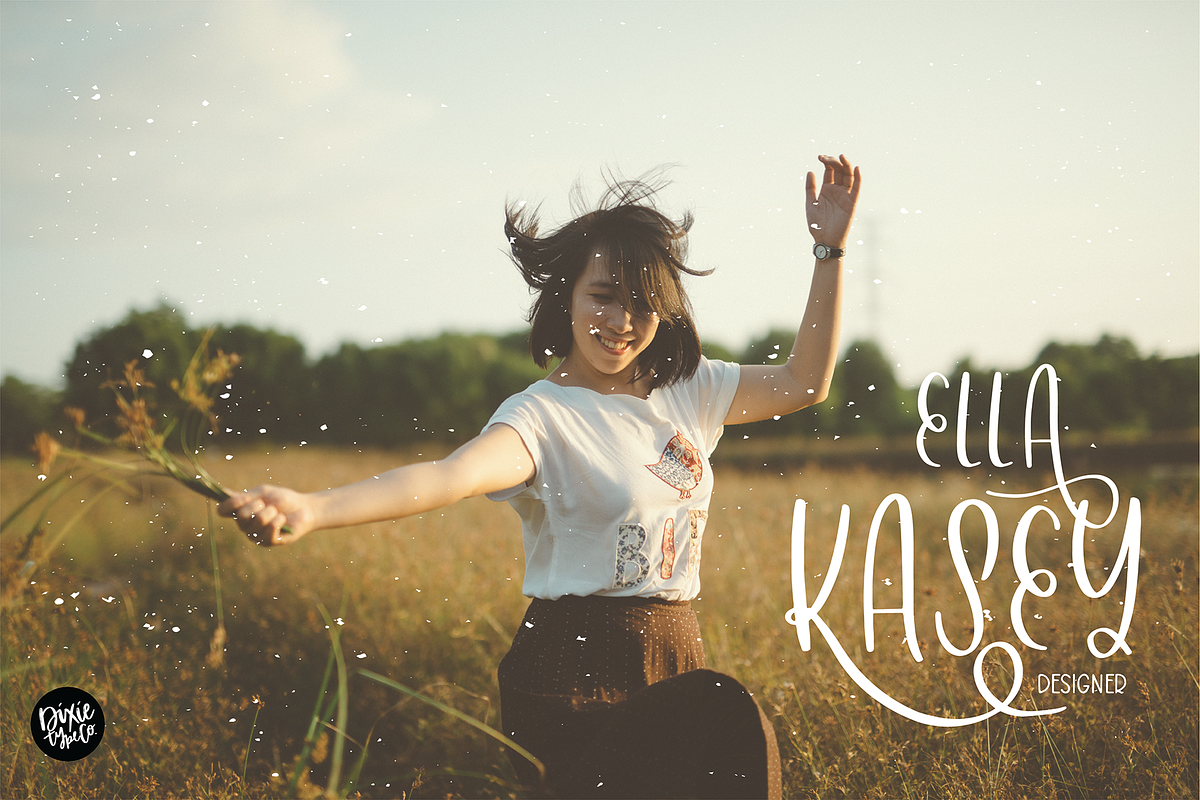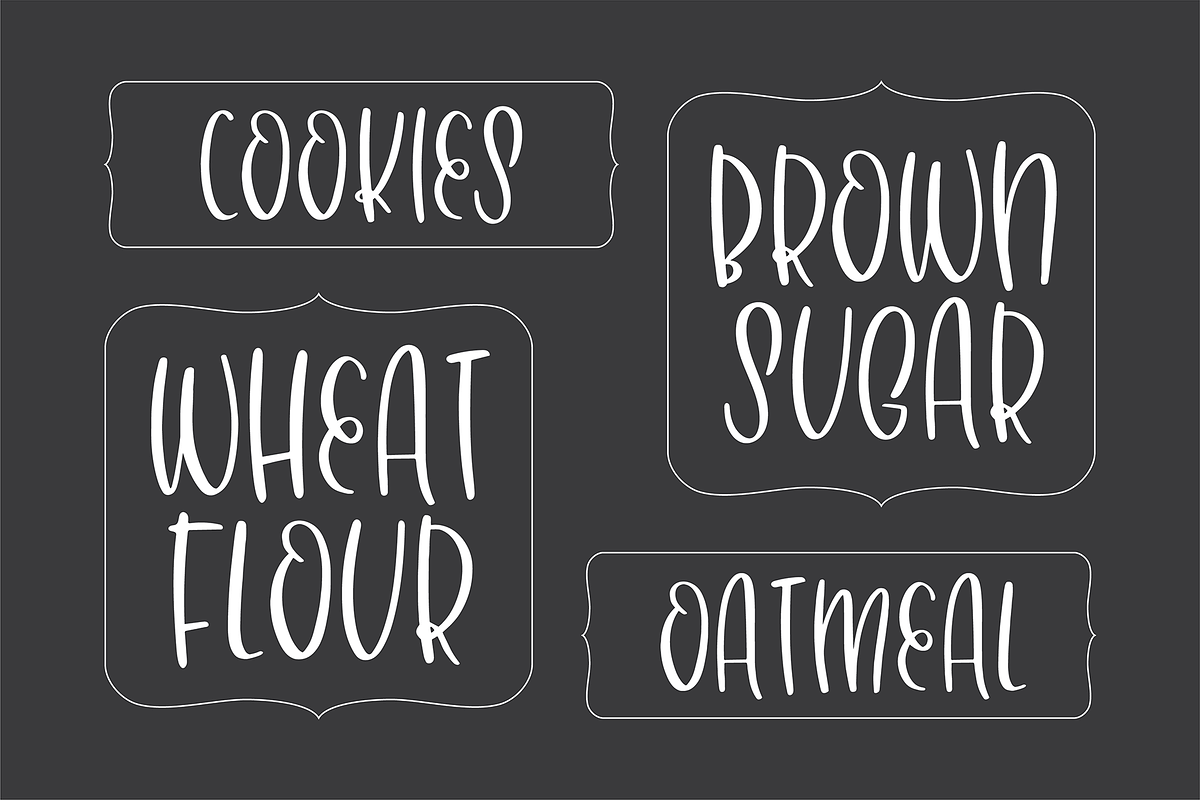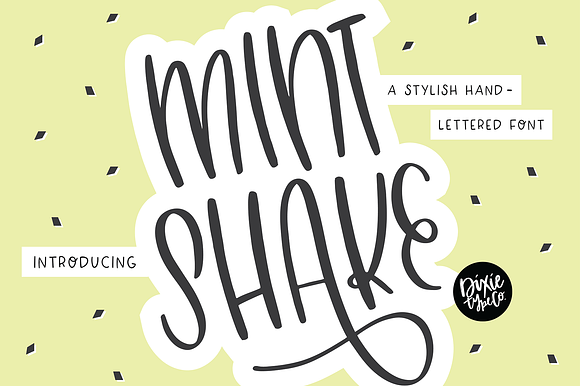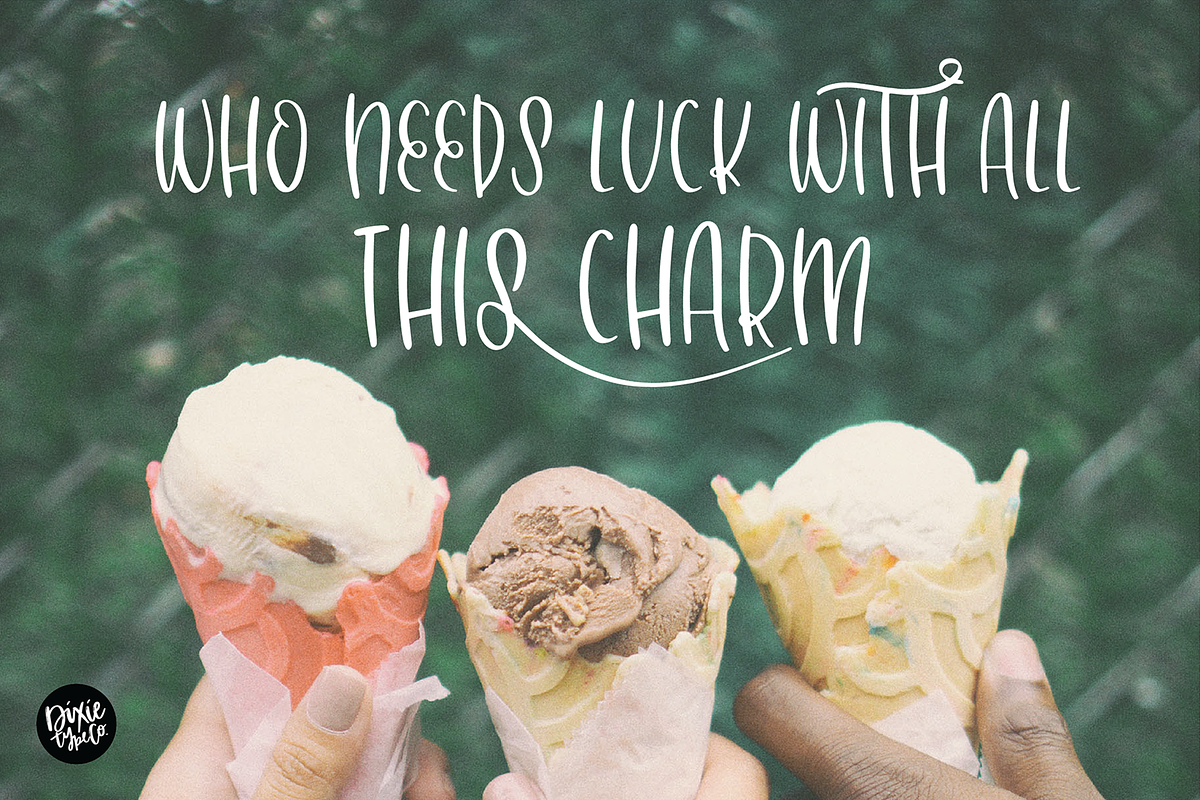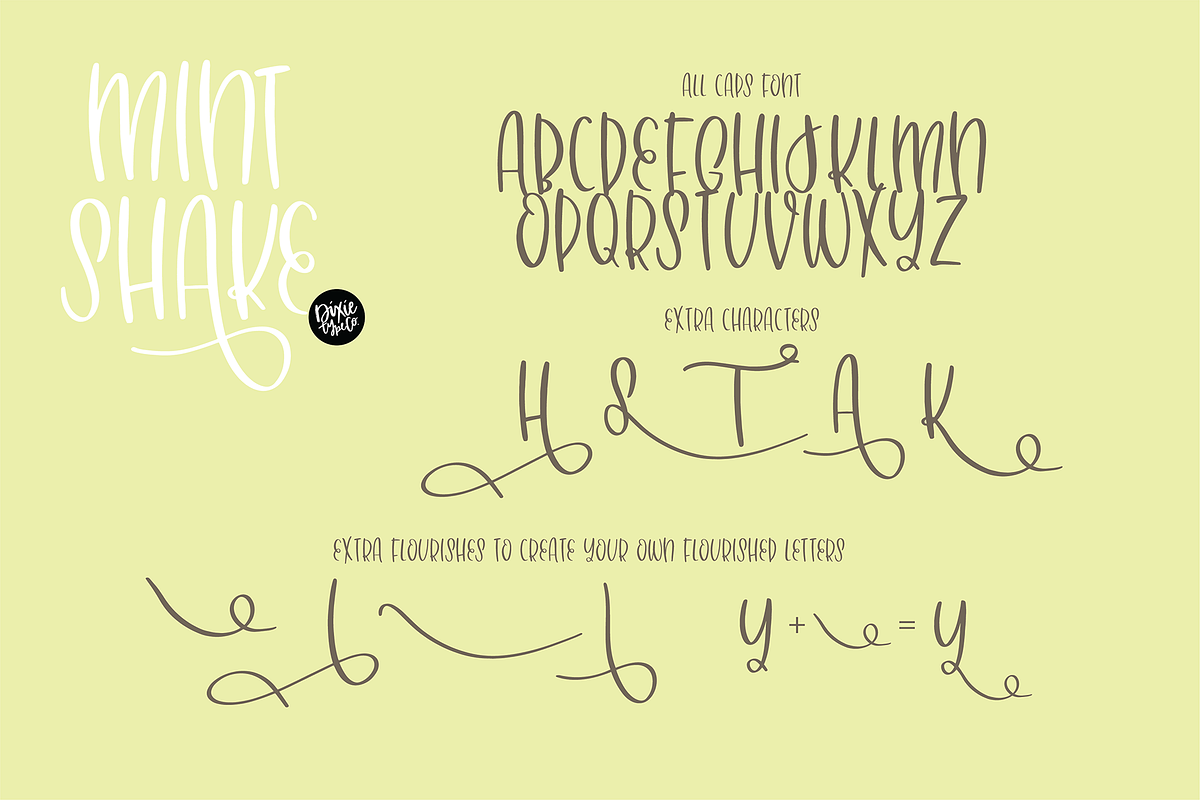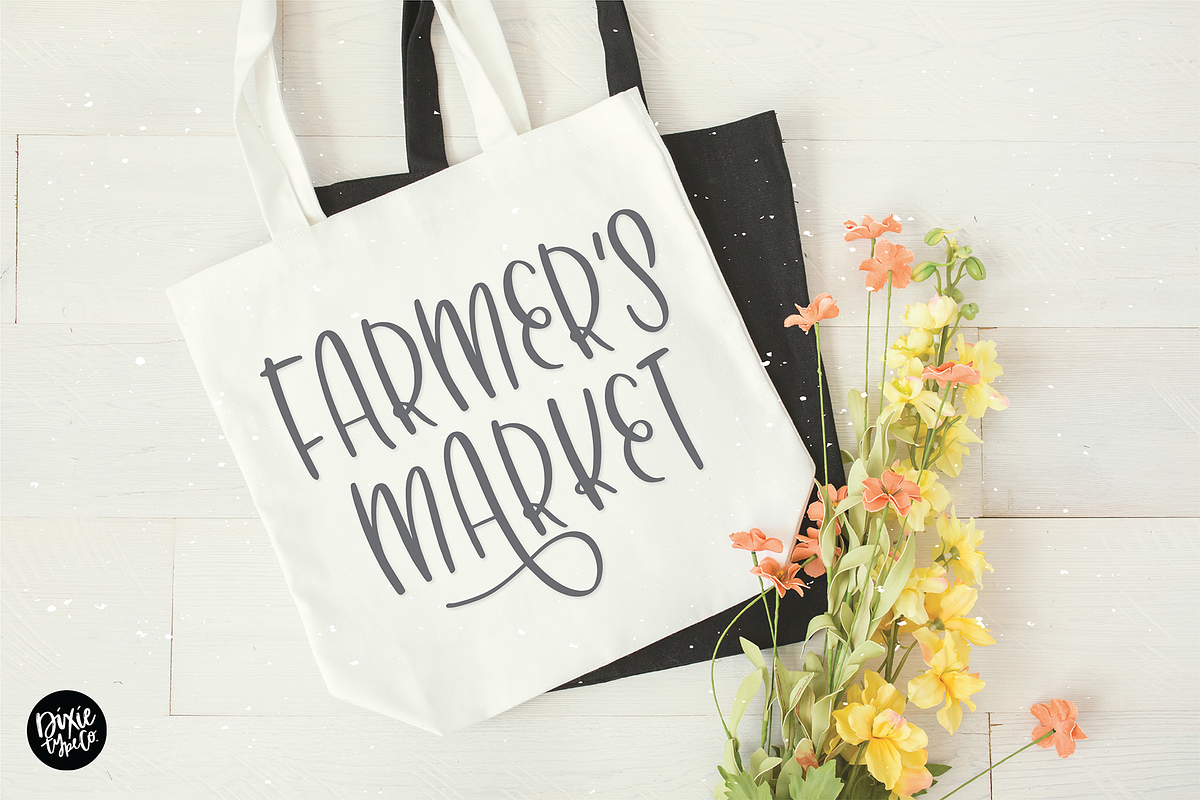
MINT SHAKE a Stylish Font
"Mint Shake" a cute sans serif handwriting font.
{ A typographic font hand-lettered with love by Dixie Type Co. }
Mint Shake is a tall sans serif lettered font. This font is perfect for home crafts, party decor, branding, and more!
Font includes: All caps letters, numbers, basic punctuation, and 9 alternate characters/ligatures. We included an alternate file of the extra characters in case you do not have access to OpenType features.